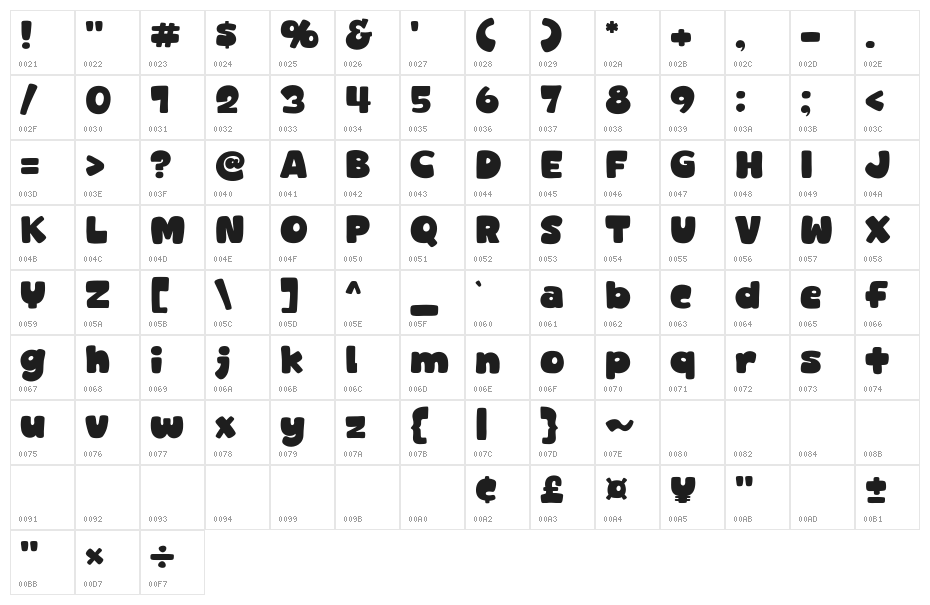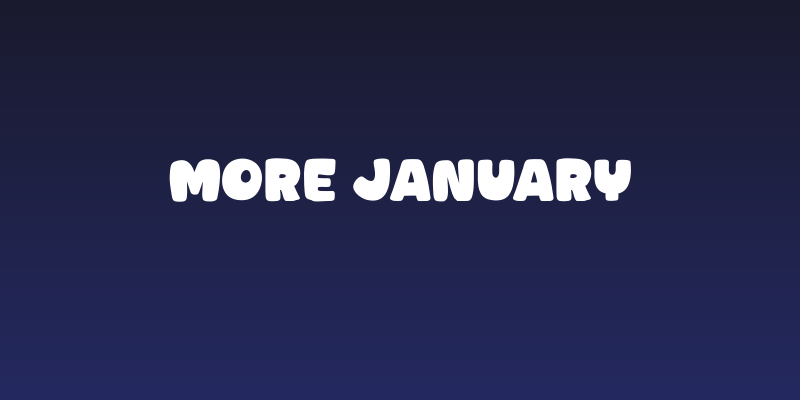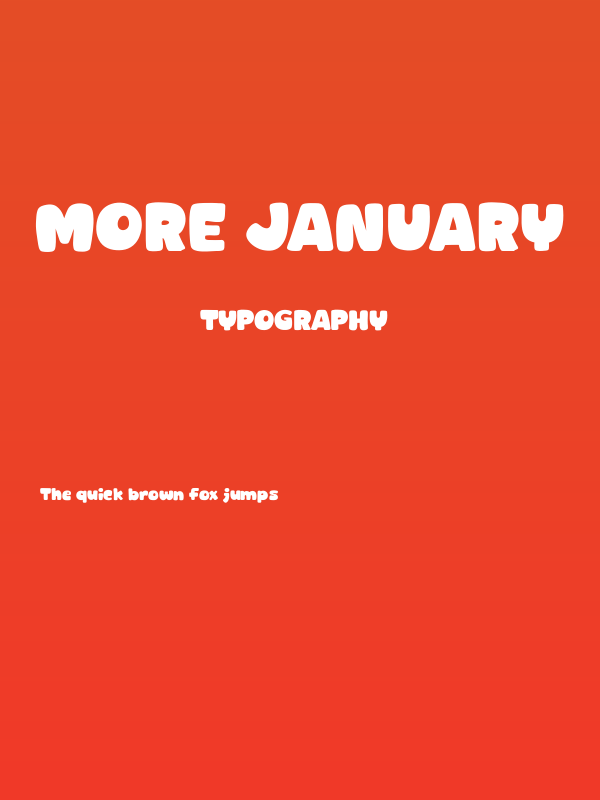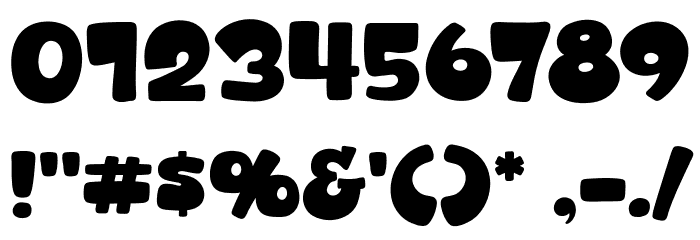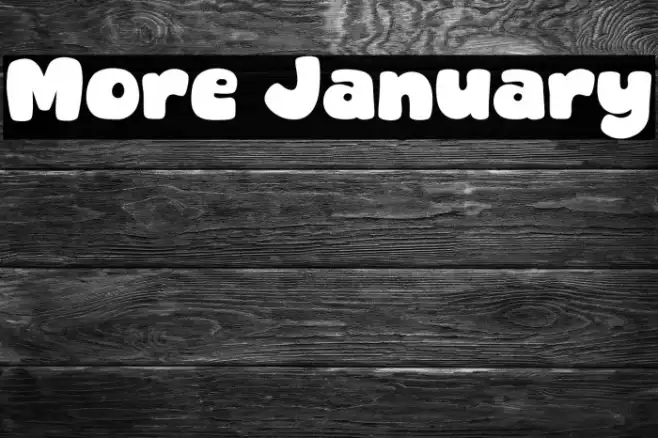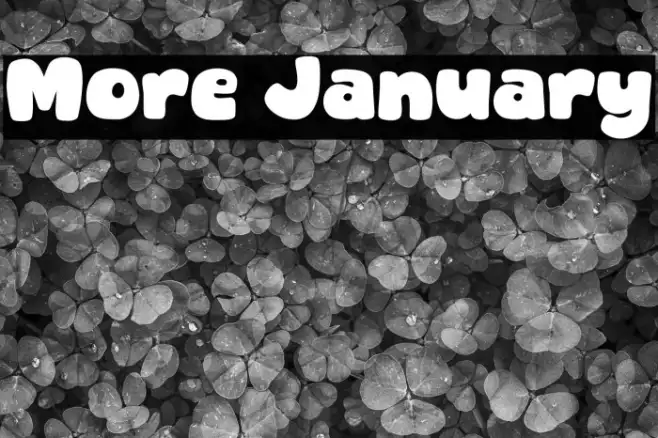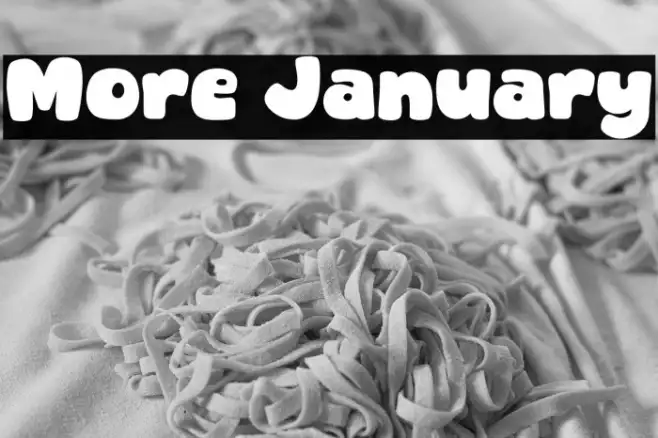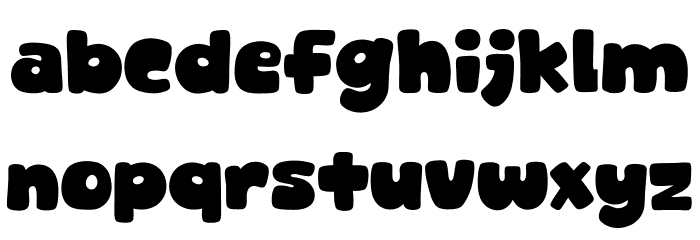
More January Font
More January Description
This font features a bold and playful design with rounded edges and a bubbly appearance. The characters are thick and uniform, giving a sense of fun and approachability. The uppercase and lowercase letters maintain a consistent style, with the lowercase letters being slightly smaller but equally bold. The numbers and special characters follow the same design principles, ensuring a cohesive look across all elements. This font's unique style makes it stand out, ideal for projects that require a touch of whimsy and creativity.
| Overall Style | Playful, Fun |